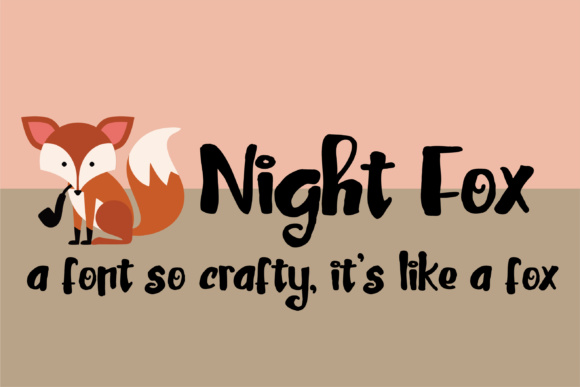
Welcome to the world of Night Fox Font, a script font family that will ignite your creativity with its captivating handwritten charm. Crafted with precision by the talented artists at Illustration Ink, Night Fox Font stands out with its playful personality and exquisite details. Its unique blend of thick and thin lines dances across the page, creating a visual symphony that commands attention. Whether you're a seasoned designer or just starting your creative journey, Night Fox Font is the perfect companion to bring your artistic visions to life.
Step into a world where imagination knows no bounds. With Night Fox Font, you'll discover a font that's more than just a collection of letters and symbols; it's an extension of your creative soul. Its natural flow and expressive curves mimic the beauty of hand-lettering, adding a touch of authenticity and warmth to your designs. Whether you're creating logos, branding materials, social media graphics, or simply adding a personal touch to your projects, Night Fox Font will elevate your work to new heights.
Dive into a world of possibilities with Night Fox Font. Experiment with different styles, sizes, and colors to create designs that resonate with your audience. Unleash your creativity and let the font's unique character shine through. From whimsical invitations to captivating posters, Night Fox Font will add a touch of magic to every project you undertake.
Don't settle for ordinary; embrace the extraordinary with Night Fox Font. Its versatility knows no bounds, making it the perfect choice for a wide range of design projects. Let your imagination run wild as you explore the endless possibilities that await you. Night Fox Font is more than just a font; it's an invitation to embark on a creative adventure where your ideas take center stage.